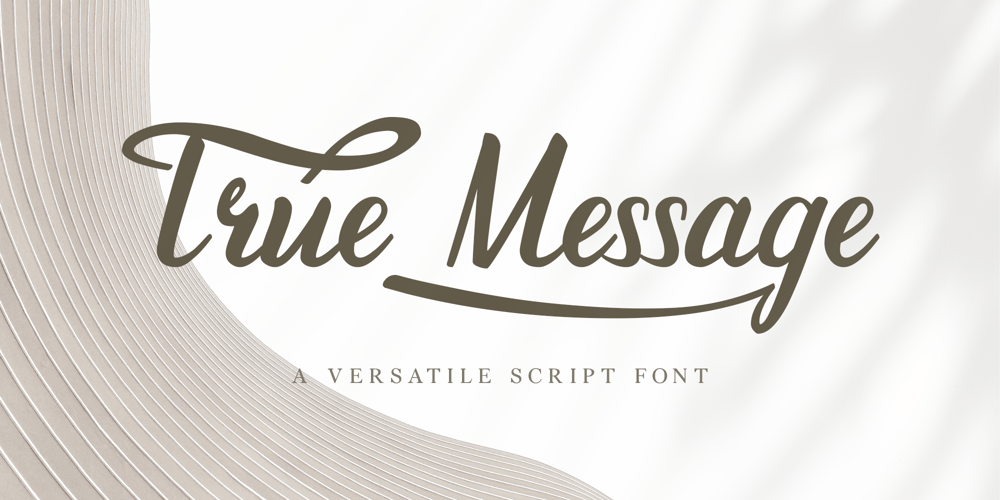
True Message Font Family was designed by Saefulloh and published by Attractype. True Message contains 1 styles and family package options. True Message is a handwritten brush font that created by skilled hands to make this font look stylish and elegant. This font is suitable for branding projects, logo, wedding designs, visiting cards, social media posts, advertisements, product packaging, product designs, label, photography, watermark, invitation, stationery and any projects that need unique handwriting taste.